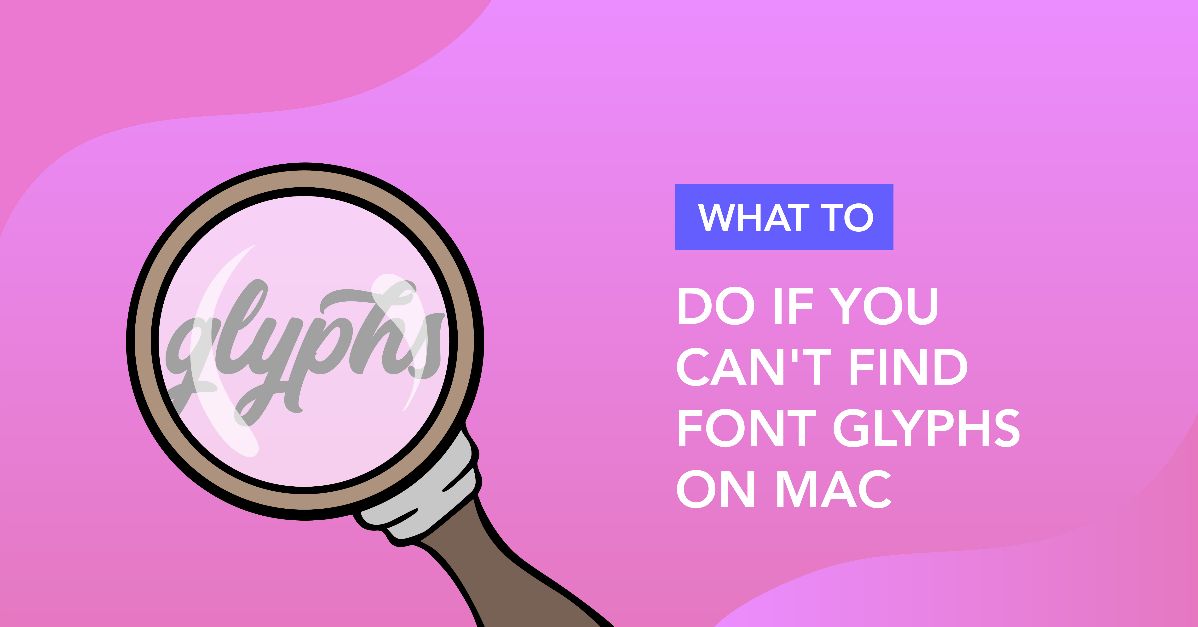
Accessing Font Glyphs with Font Book on Mac
In this tutorial, learn how to access Font Glyphs on a Mac using Font Book.
Many font designers these days are filling their fonts full of ligatures, alternate characters, and more. These extra characters help make your designs more unique and sometimes give it a more hand lettered feel.
Today we will be showing you how to access and use font glyphs on Mac, using Font Book.
For this tutorial we are using the Witch Hazel font, by the uber talented Missy Meyer. If you love fonts with ligatures, definitely check out Missy’s shop. The Pinsetter font is a must!
Step 1 - Open Font Book
To open Font Book you can go to your Launchpad or open a Spotlight Search (Cmd + Spacebar).
Then type in “Font Book”.
Step 2 - Select Your Font
You’ll see all of your installed fonts under User. Scroll down until you see the font you would like to use.
Step 3 - Locate Your Glyphs in Font Book
If you’re not already, make sure you click on the “4 squares” symbol, which switches you to Repertoire mode. This will show you all the glyphs, or characters, included in the font.
Some fonts will have the glyphs all the way at the bottom, while others will have it mixed in with the font. It all depends how the font designer coded the font.
The glyphs will not appear any different than the regular characters, but if you are curious to know the difference you can hover over any letter.
You’ll see that this is the standard B for this font.
If you scroll down you’ll start to see more options for letters. We have highlighted the Alternate Character for D and you can see the code is U+E029.
To use the alternate character in your program, you can copy (Cmd + C) and paste (Cmd + V) the letter into your program.
It should be noted that in order for the glyphs to appear you will need the font to already be selected in that program. This is the method you would use for using glyphs in Cricut.